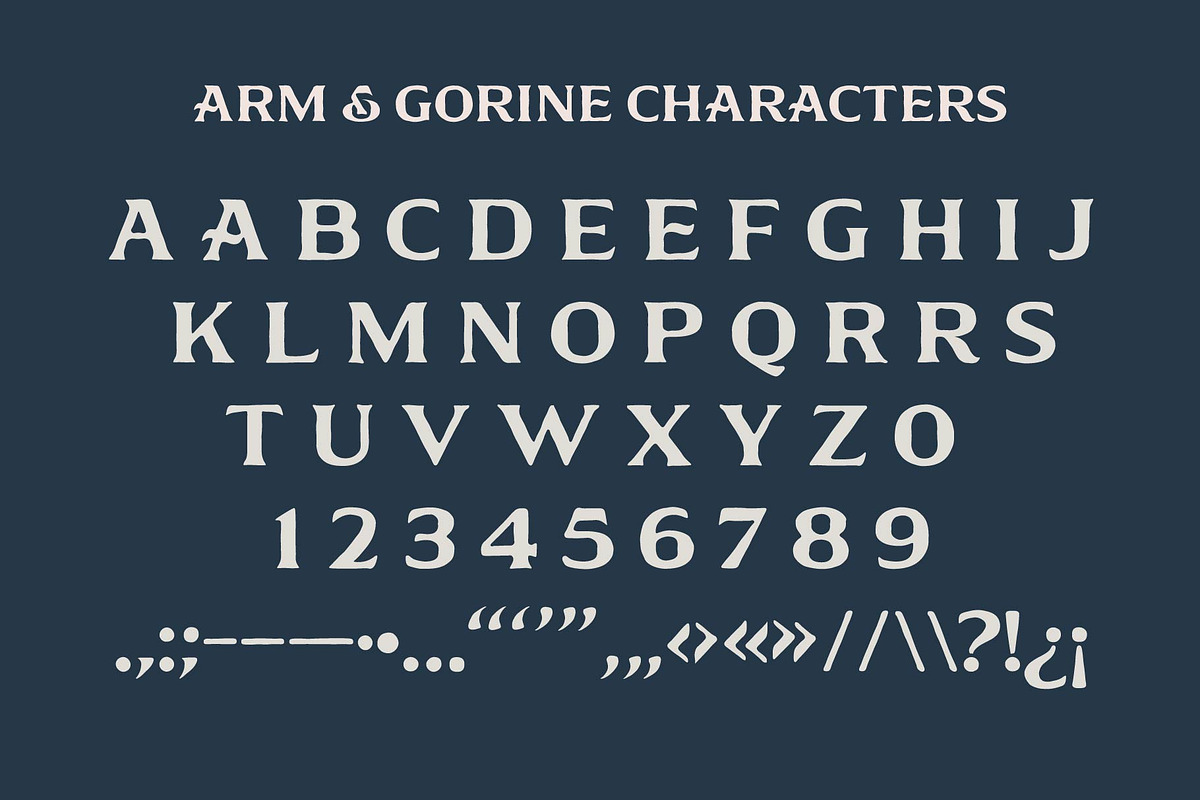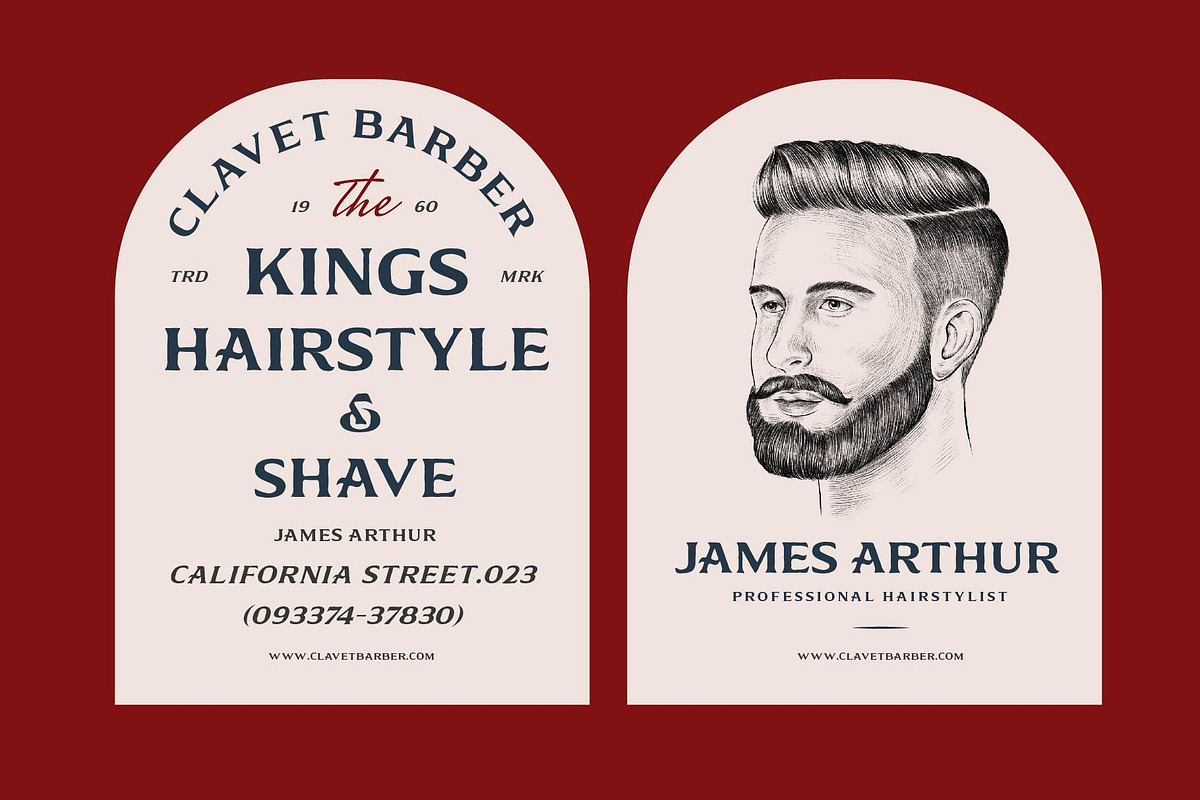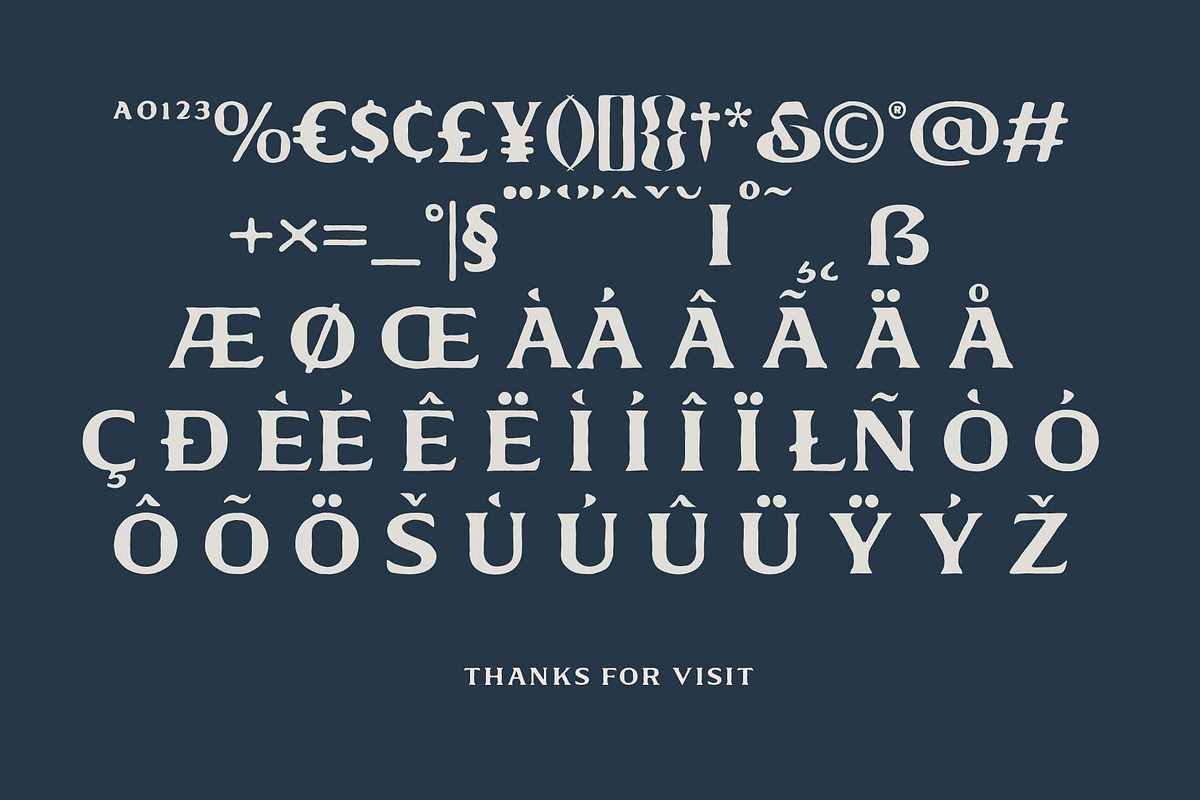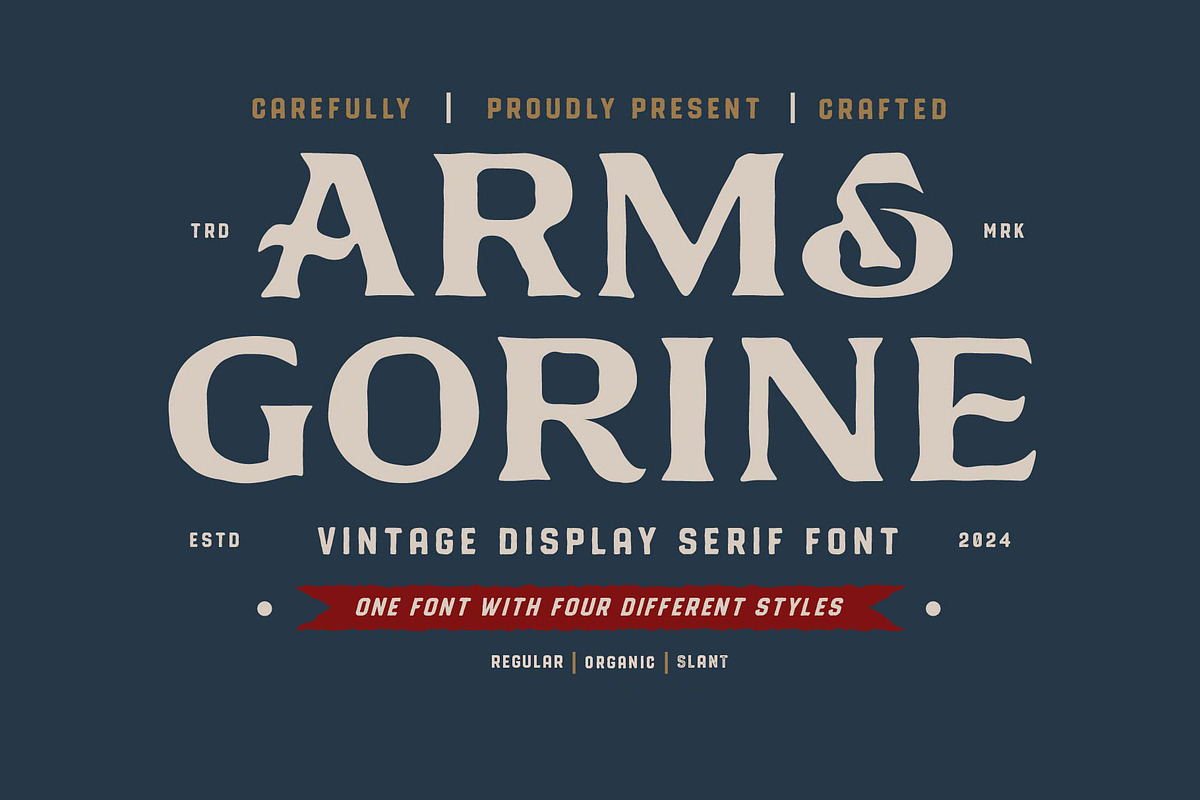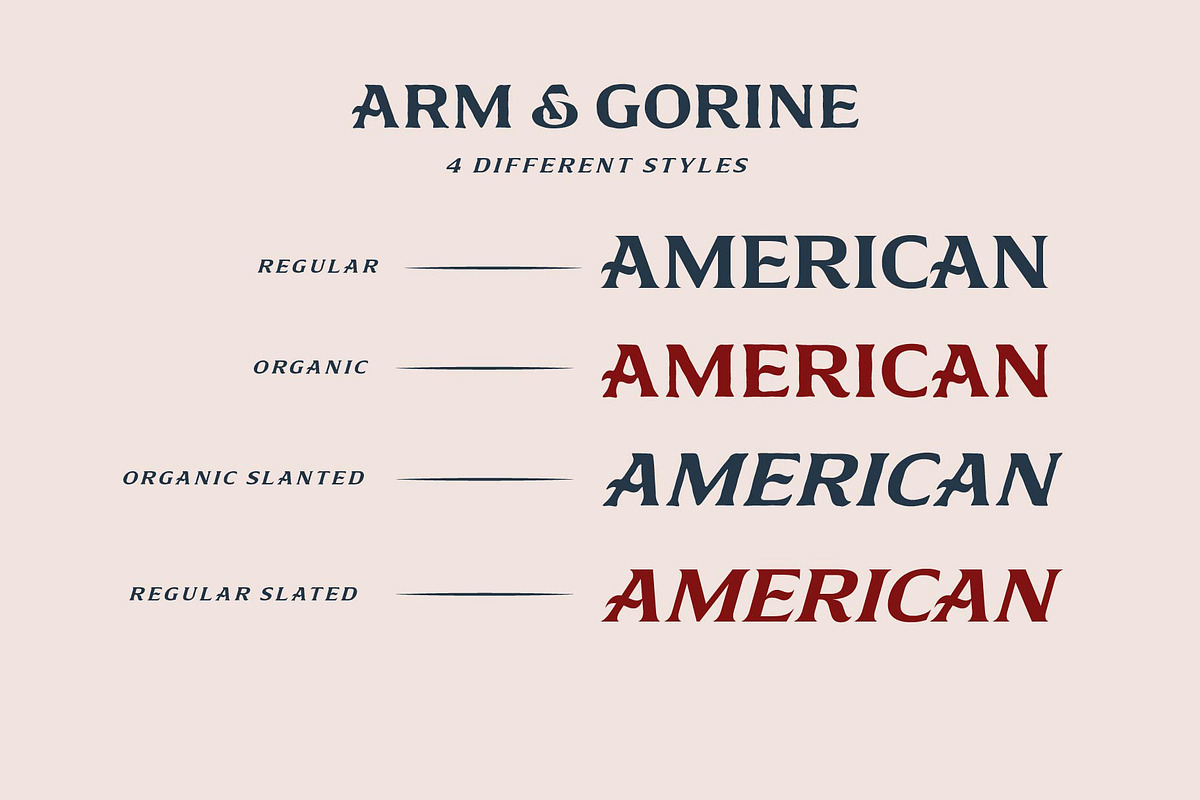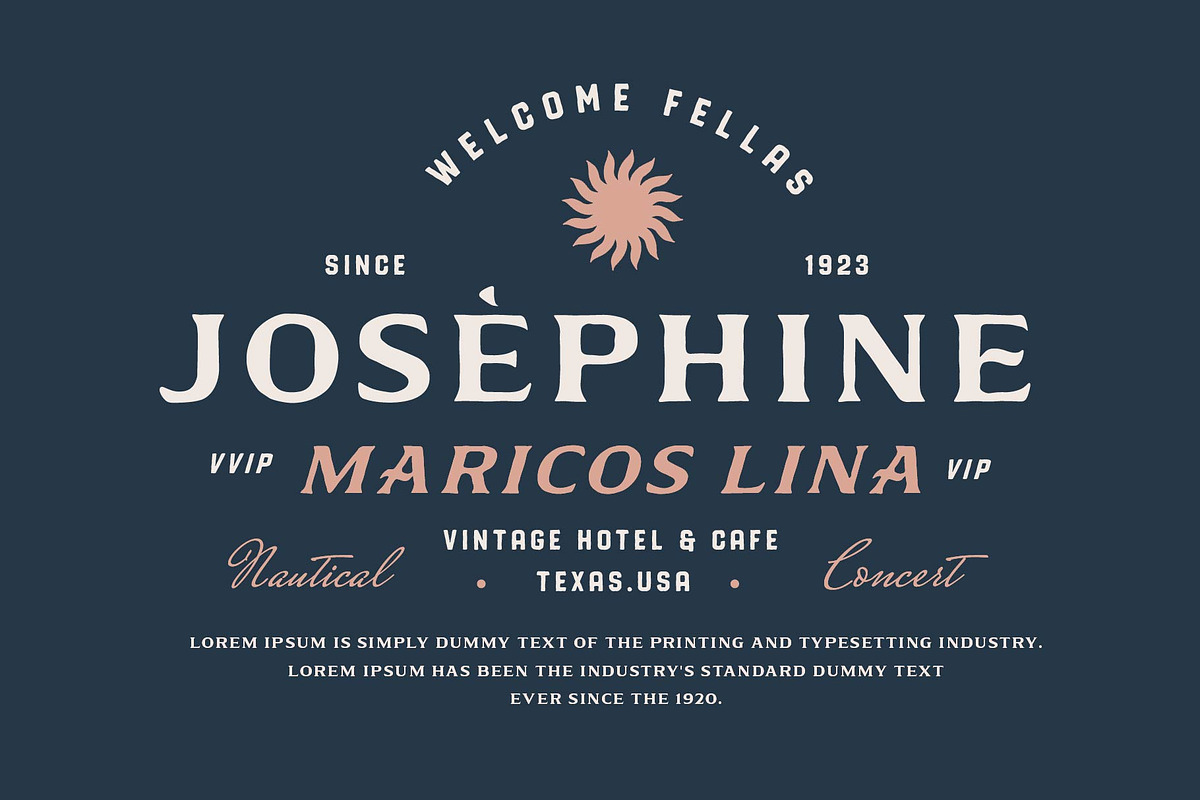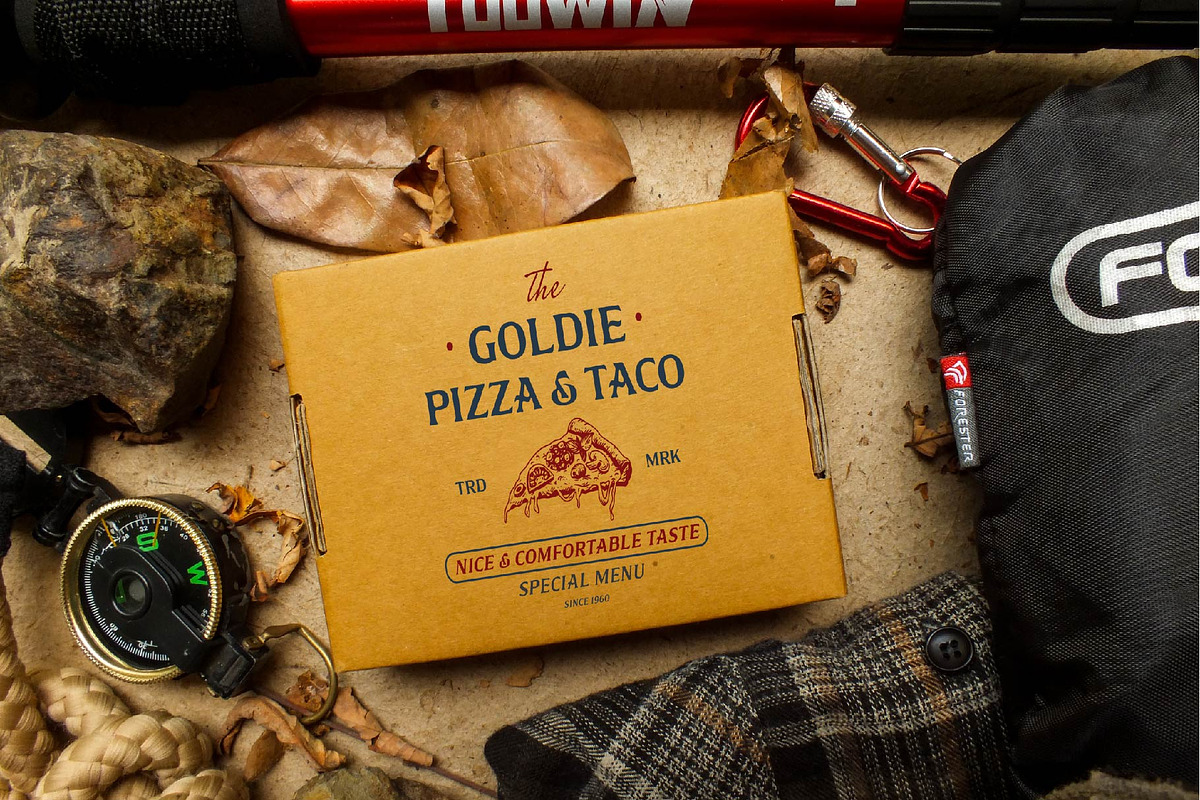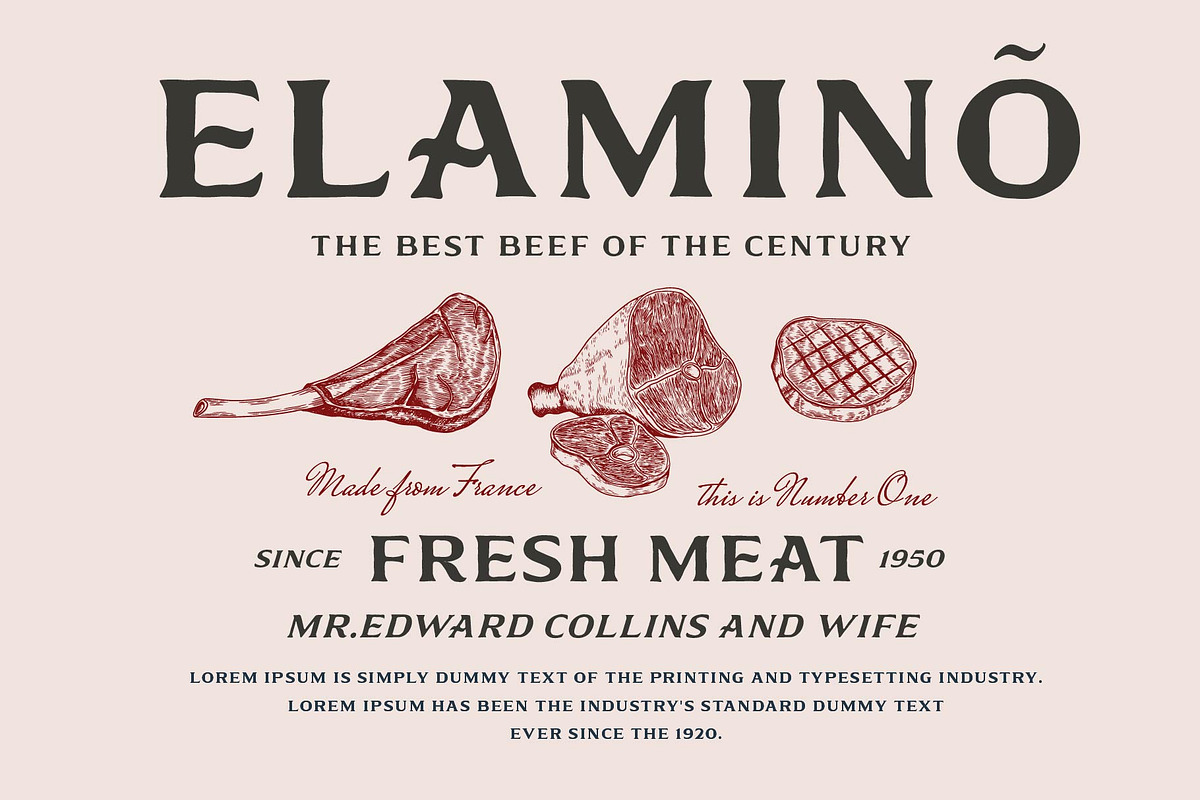
Arm & Gorine - Vintage Display Serif
Arm & Gorine is a vintage display serif with a natural, organic feel. Designed to bring classic elegance and authentic personality to your creative projects, this typeface is perfect for sophisticated branding, striking logos, editorial headlines, and social media graphics that need a touch of timeless charm.
The Regular style delivers clean vintage-inspired letterforms, while the Organic style adds a handcrafted, earthy twist. For a dynamic and more expressive option, the Slant style introduces subtle movement to your typography, giving your words a sense of flow and energy.
From retro posters to refined packaging and stylish social media posts, Arm & Gorine is made for creators who want their designs to stand out with a natural yet classic edge.
- Vintage display serif with natural character
- Three styles: Regular • Organic • Slant
- Numerals & punctuation
Let your words carry vintage elegance and organic personality — with Arm & Gorine. Perfect for: Branding • Logos • Posters • Editorial • Social Media • Packaging